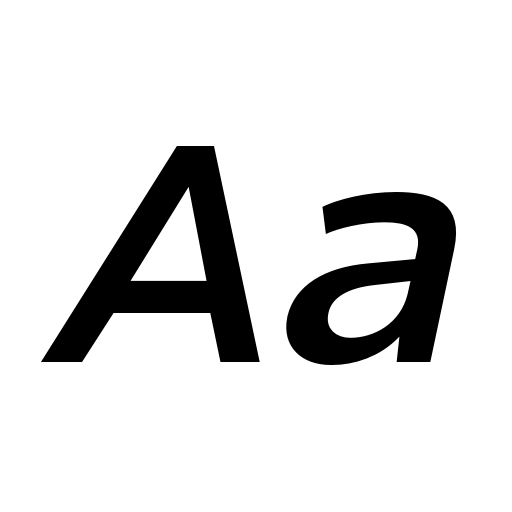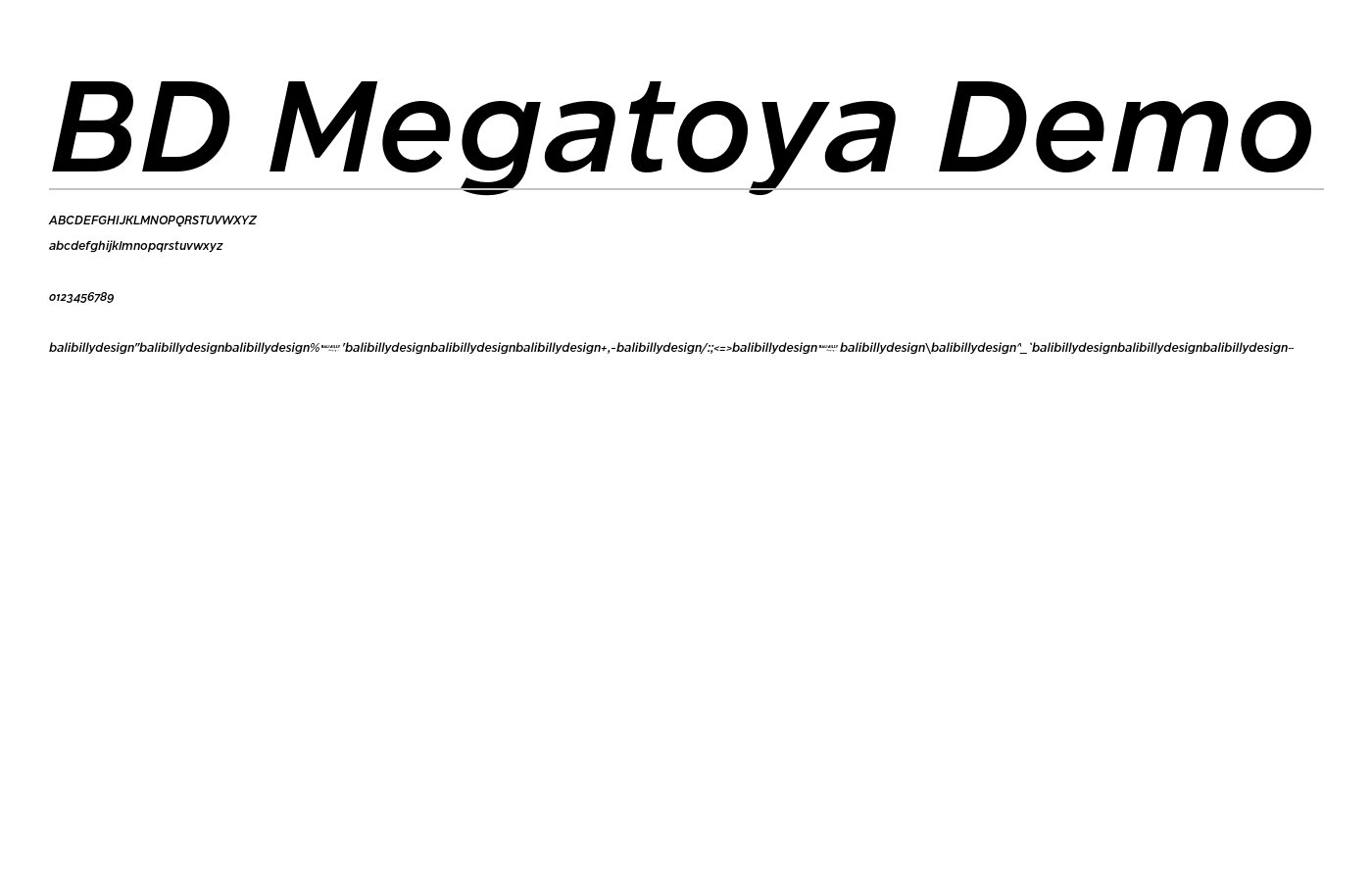
BD Megatoya Demo is a sleek, modern sans serif font featuring a clean, slightly condensed structure with medium weight and a high x-height that ensures excellent readability. Its smooth, rounded edges and subtle italic style add a dynamic yet professional feel, making it ideal for contemporary branding, editorial headlines, and digital interfaces that require clarity and a touch of elegance. This font works well when you want to convey a friendly, approachable, and forward-thinking image.
BD Megatoya Demo Font
About BD Megatoya Demo Font